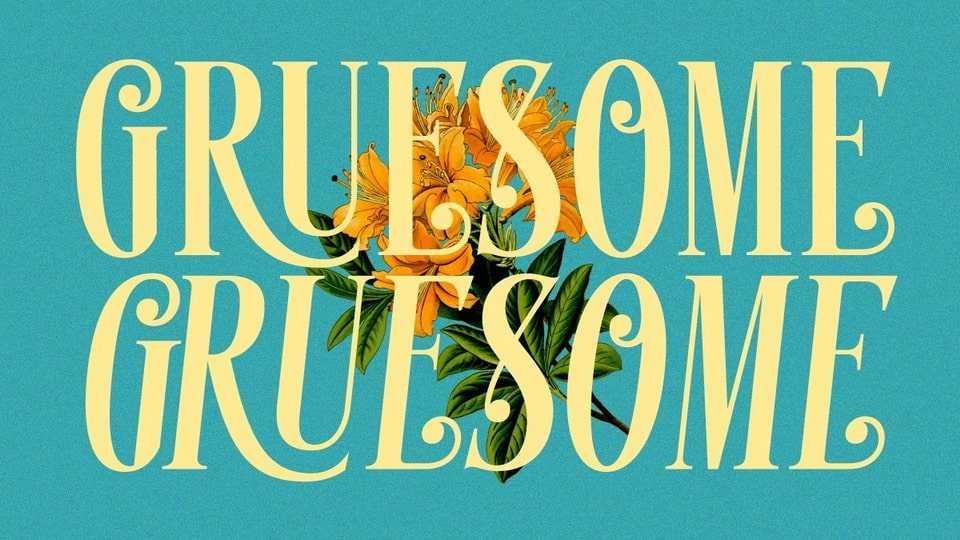
Download Gruesome font, a decorative serif typeface in vintage style. Gruesome font is perfectly made to be applied to logos and various other formal forms.